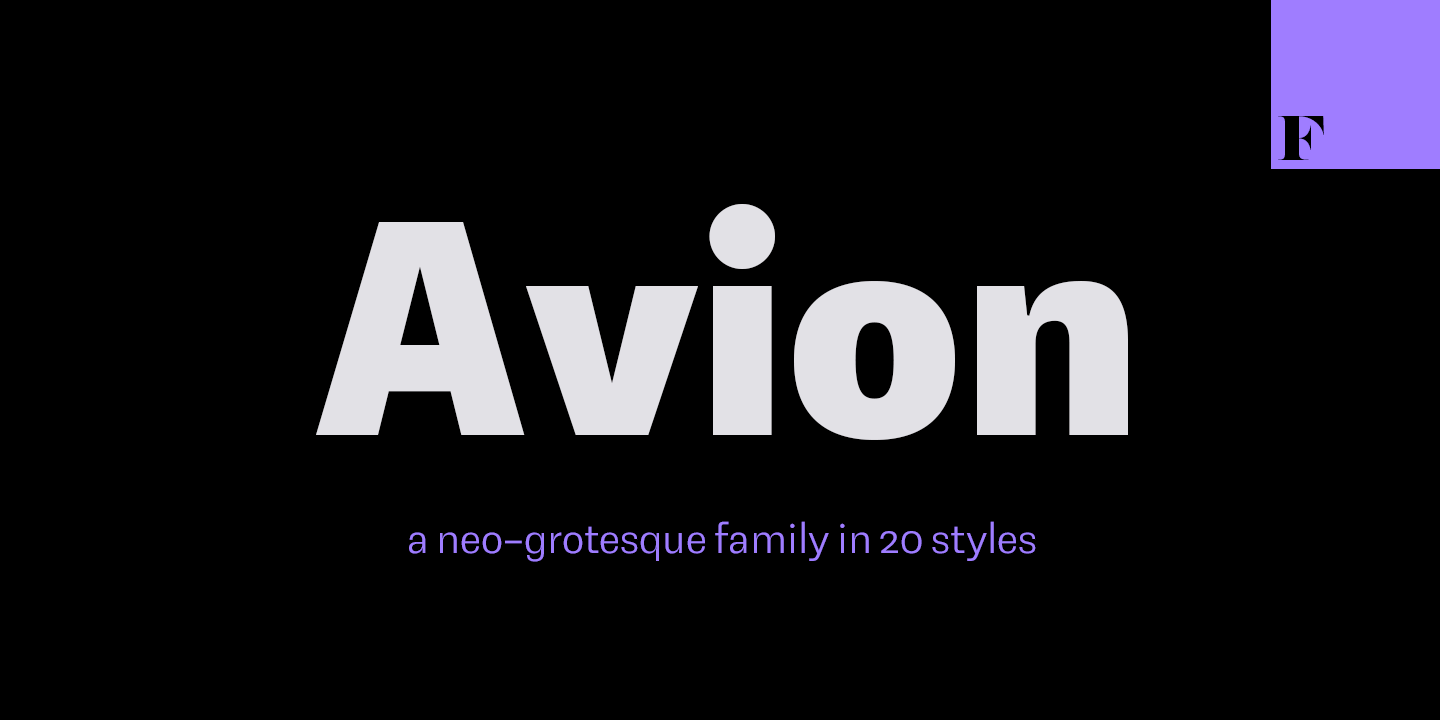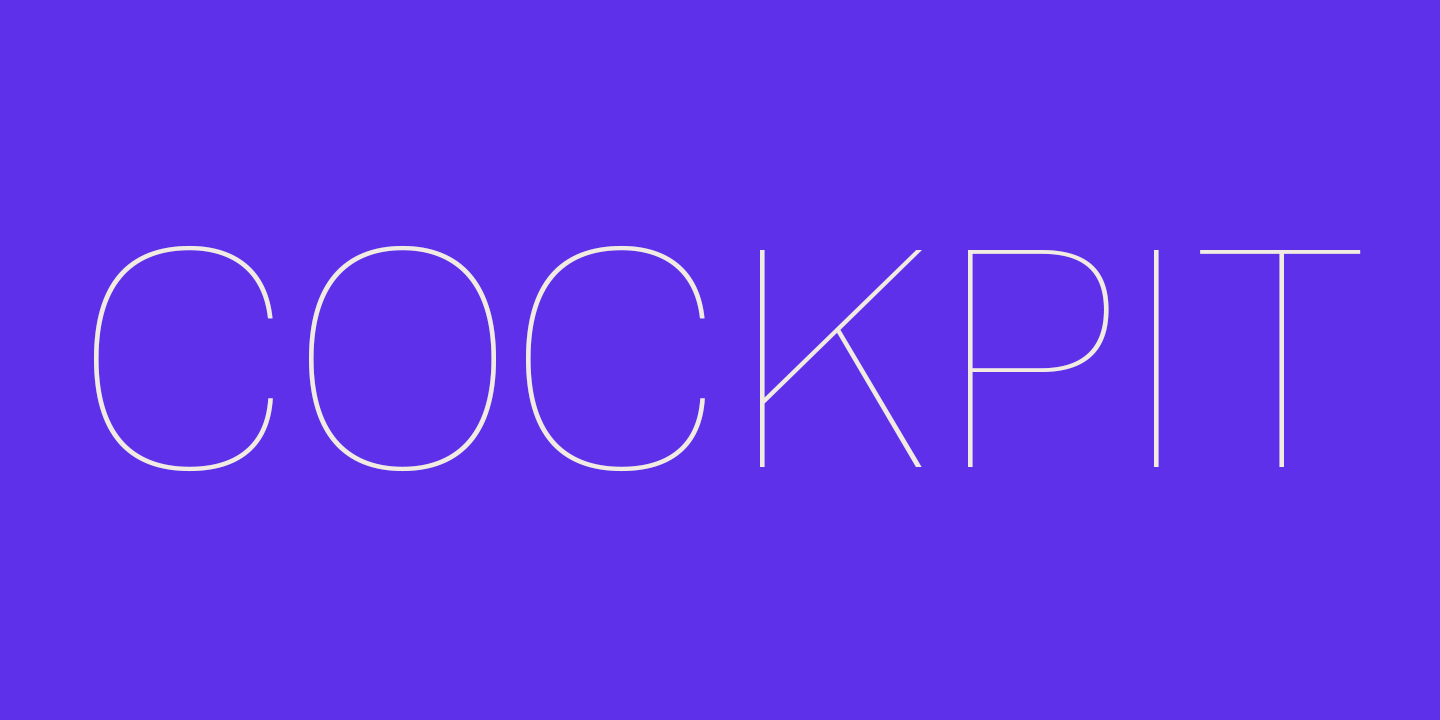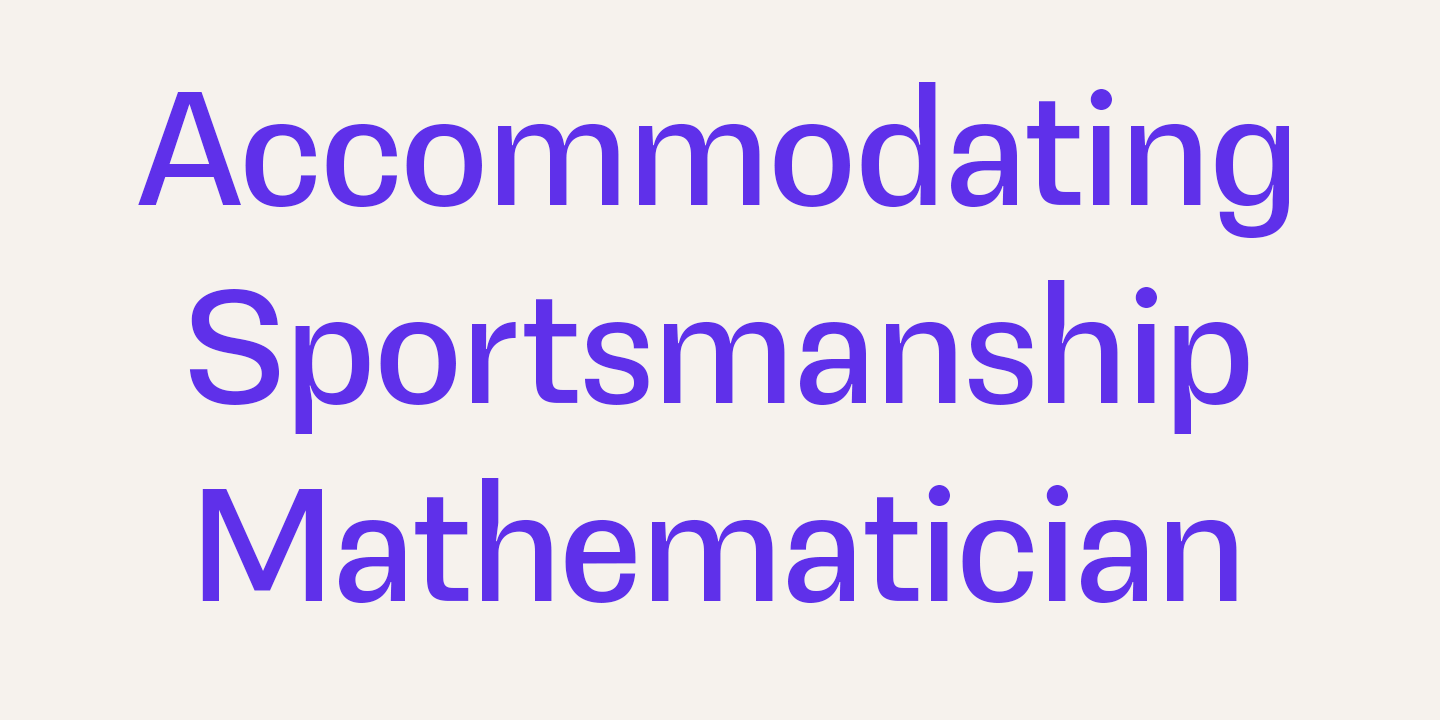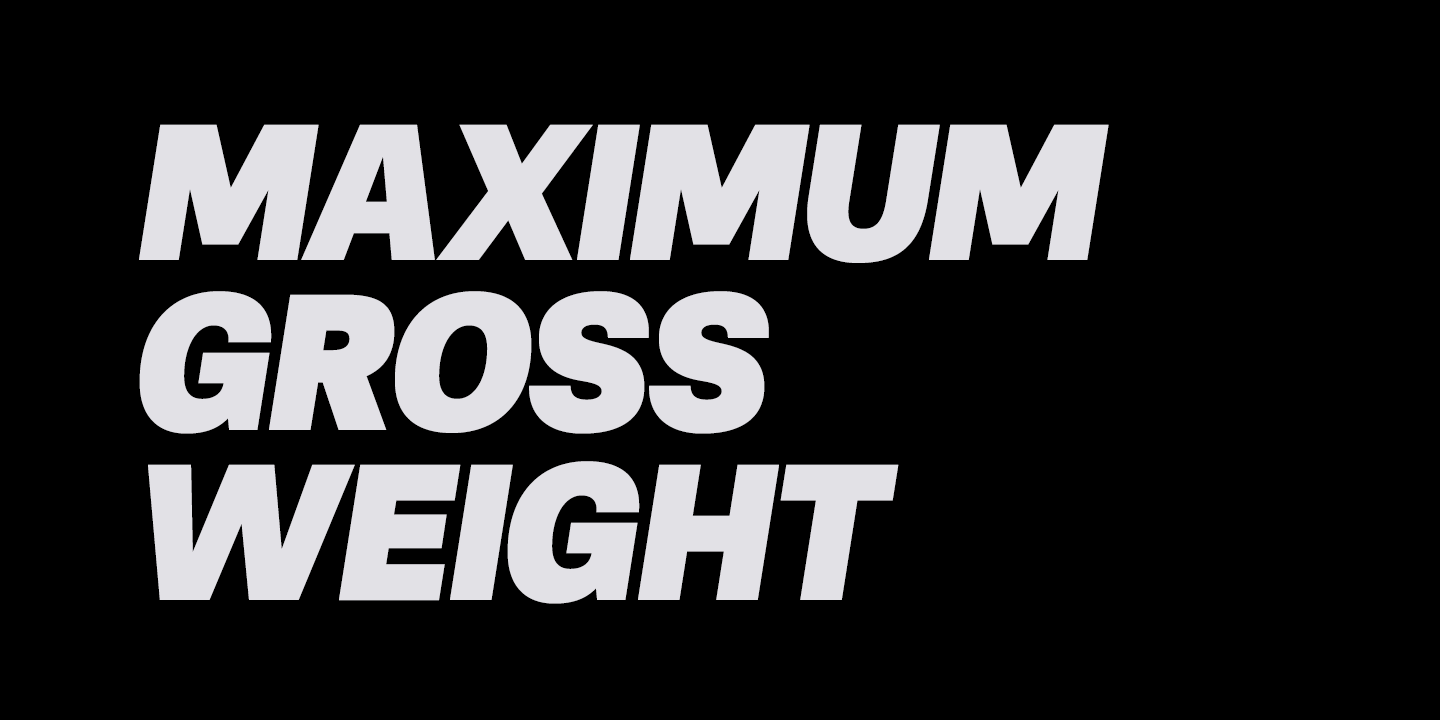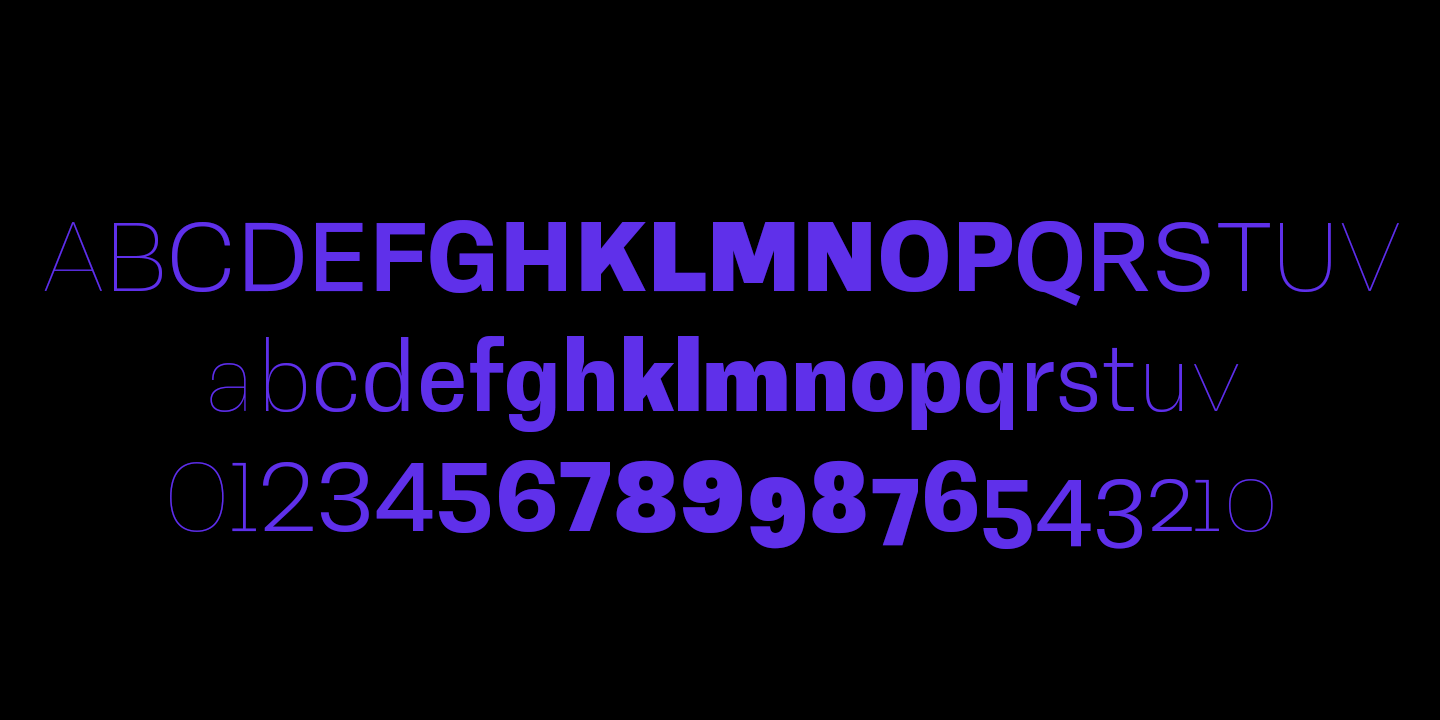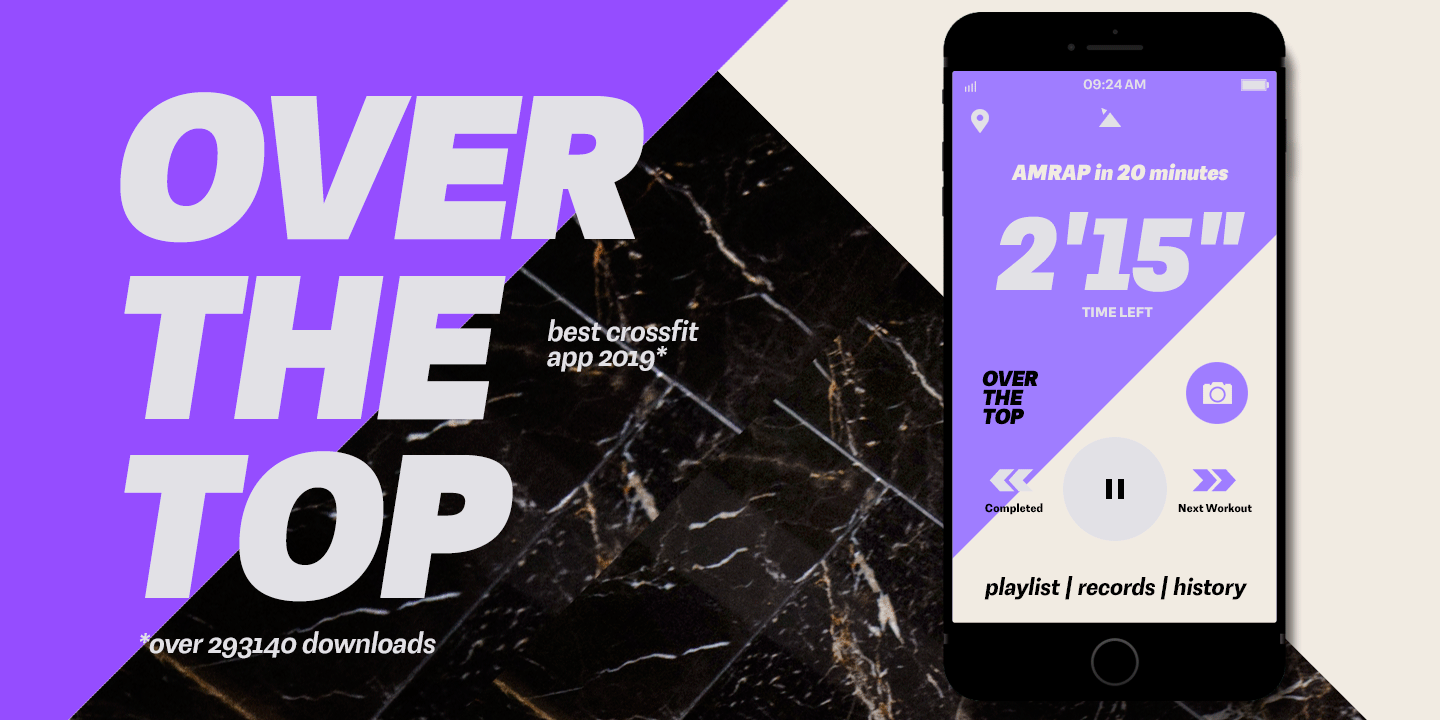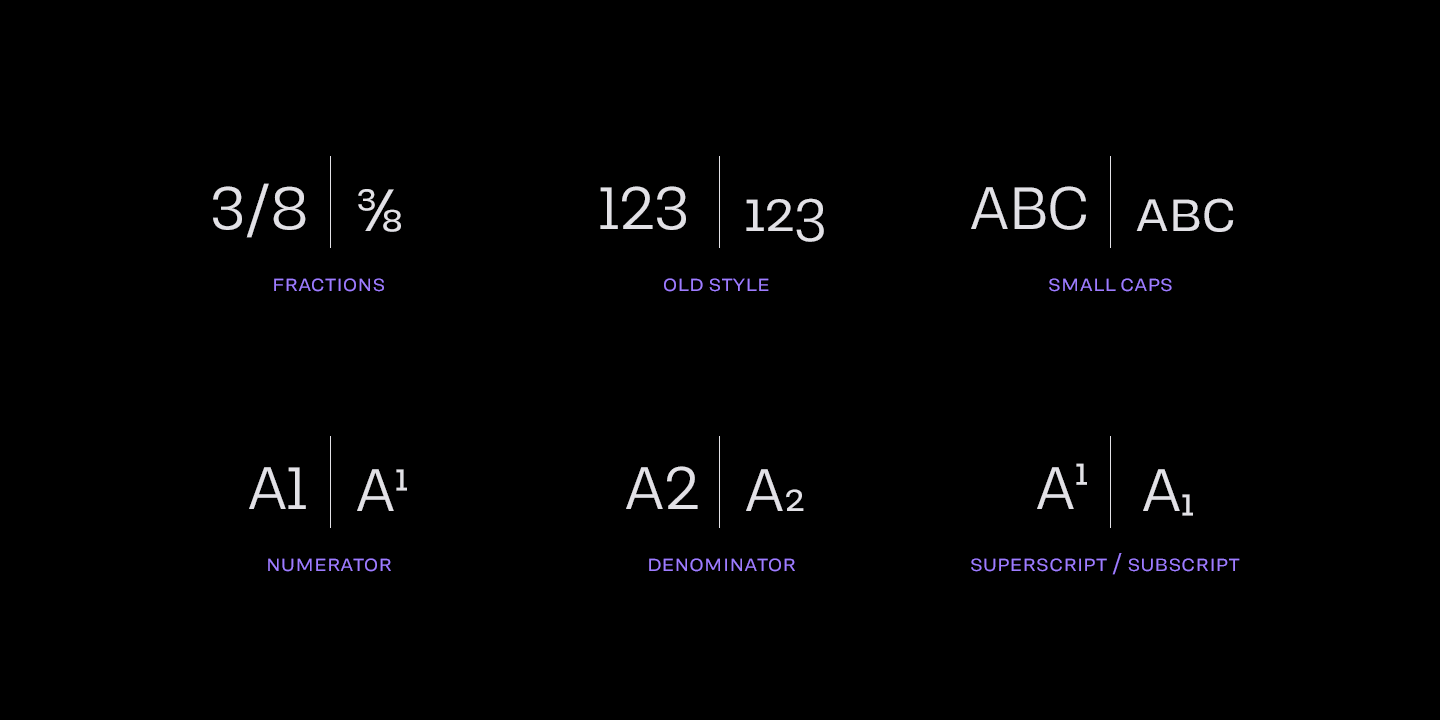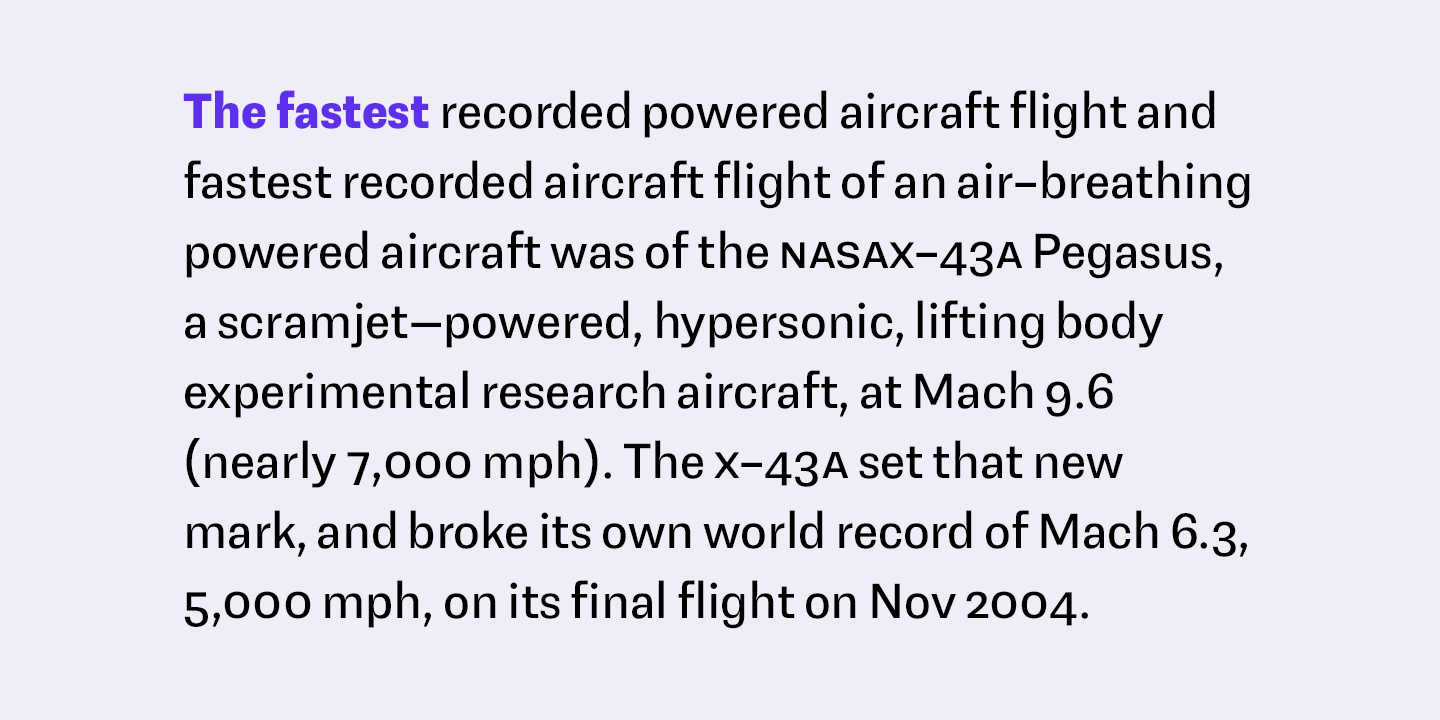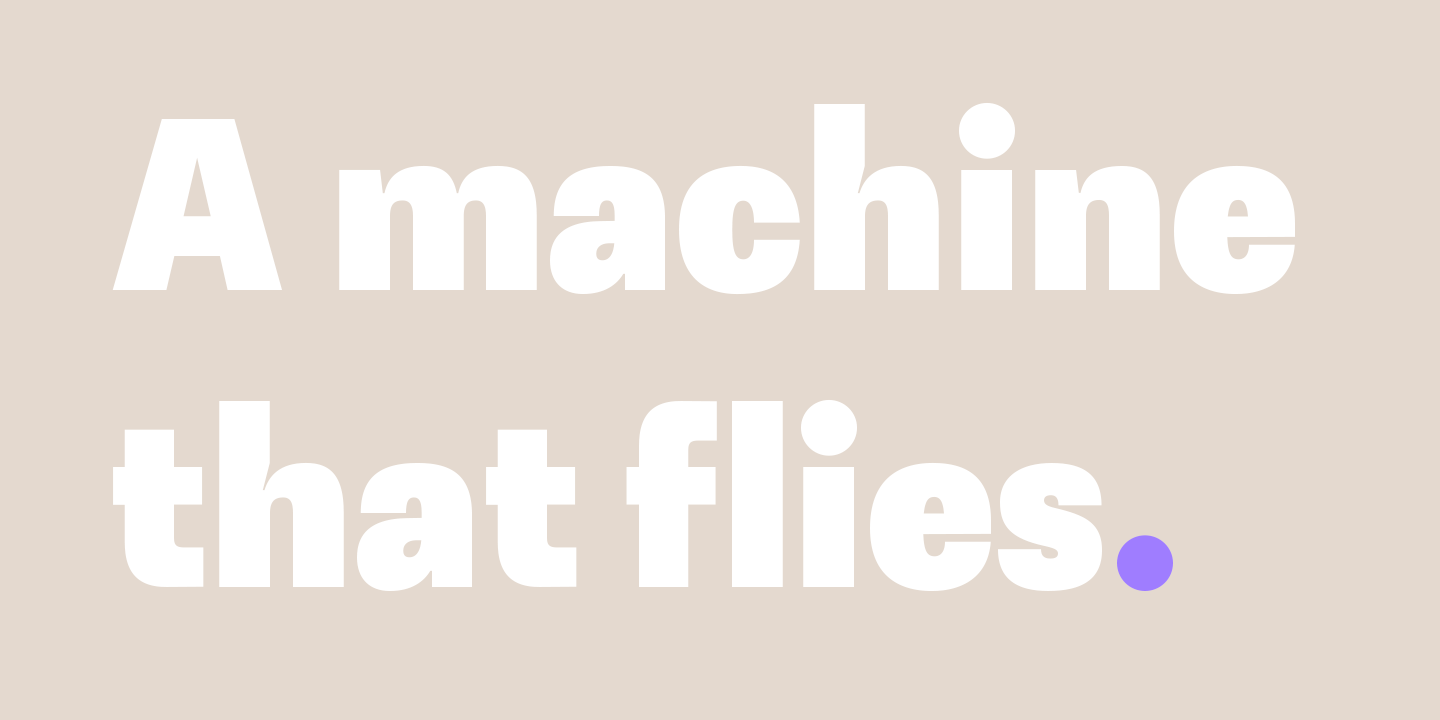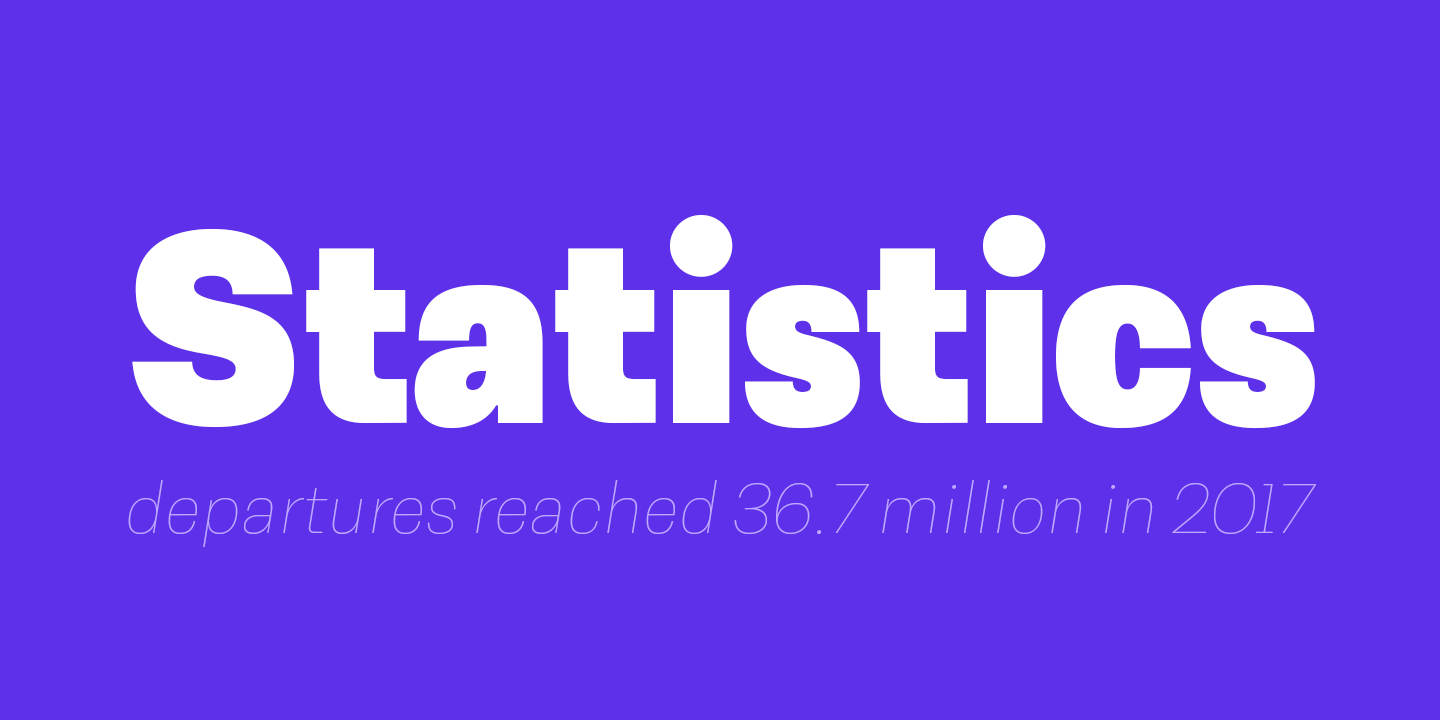
Avion
Font Family by Fenotype
With a slightly more rectangular approach and some clever detailing, Avion has a distinct look of its own, yet provokes a calming familiarity of neutrality and objectiveness. As goes without saying, it's also equipped with a sensible amount of features that make it a true, versatile workhorse. Get on board!